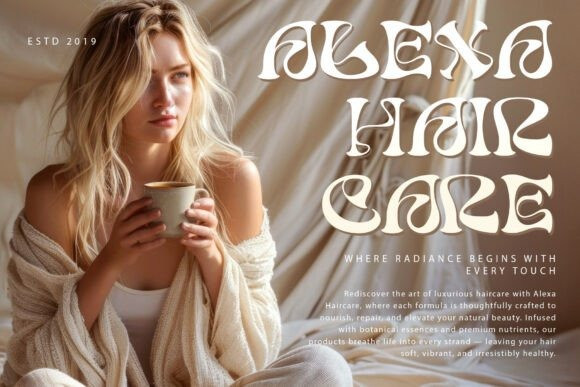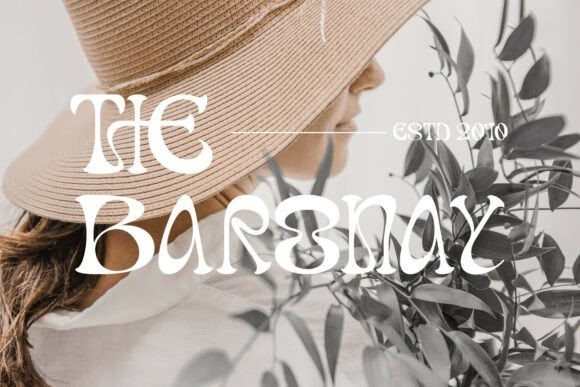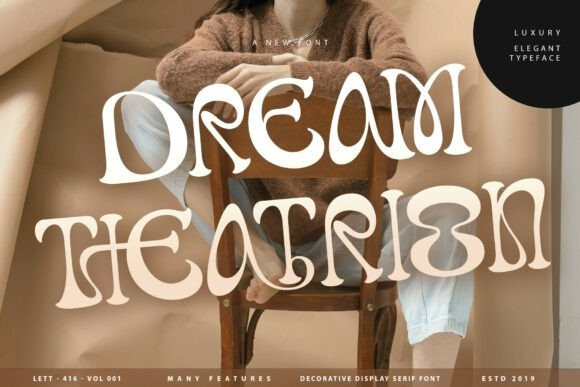
Dream theatrion Font
Dream theatrion Font is a luxurious, highly decorative display serif that channels a sophisticated, groovy aesthetic, blending retro 60s/70s fluidity with high-end, contemporary elegance.
This Dream Theatrion typeface is characterised by exaggerated, ‘melted’ curves, sweeping strokes, and large apertures, creating a captivating sense of soft motion and opulence. The decorative flourishes and high contrast between thin and thick parts ensure it stands out magnificently at large sizes.
Each curve and contour is crafted to evoke a sense of drama, poise, and refinement, making it a perfect choice for high-end branding, editorial layouts, and timeless design statements.
Dream Theatrion’s unique letterforms capture a theatrical elegance while maintaining modern versatility. Its distinctive shapes and smooth contrast bring a luxurious touch to logos, beauty products, magazines, and creative headlines.
Utilize this magnificent Dream Theatrion font for creating vintage-inspired luxury branding, high-fashion magazine editorials, large-scale event posters, or any project that requires a groovy, elegant, and highly artistic, theatrical touch. This decorative display serif font is the definition of nostalgic, sophisticated glamour, making the Dream Theatrion typeface unforgettable.
Available in Regular and Italic styles, Dream Theatrion offers full PUA encoding for easy access to alternate characters and ligatures, ensuring endless design possibilities. Step into the world of refined aesthetics with Dream Theatrion, where elegance meets artistic expression.